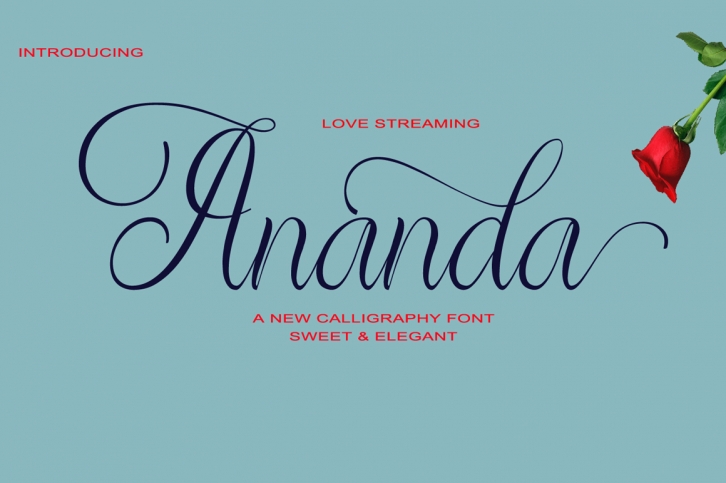
Ananda is a smooth and elegant handwritten font. It looks stunning on wedding invitations, thank you cards, quotes, greeting cards, logos, business cards and every other design which needs a customized touch.